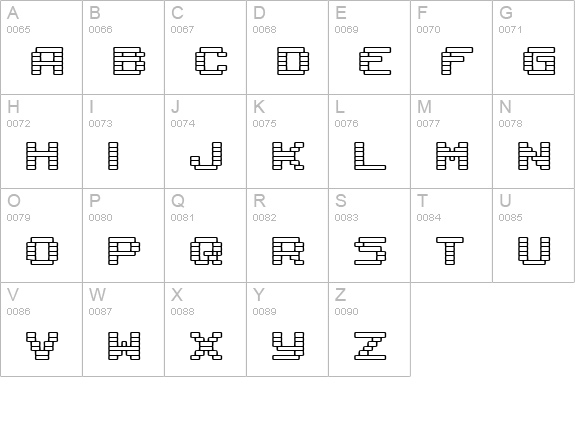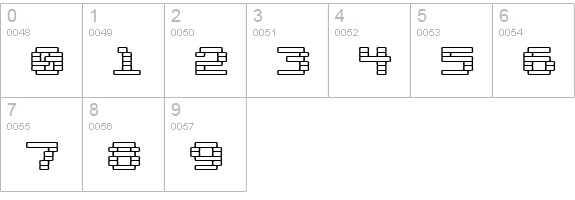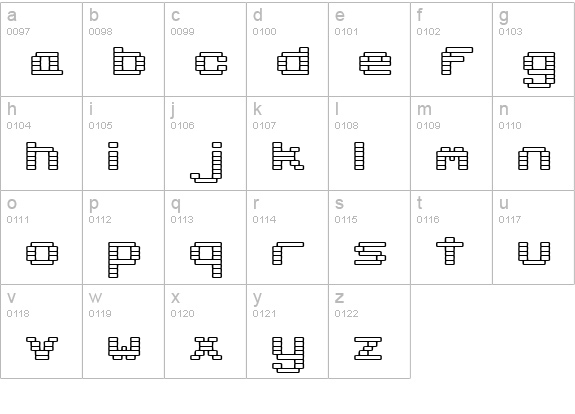
Gaposis Outline BRK Font Details
Gaposis Outline BRK is a stunning and versatile font that will elevate your design projects to new heights. With its clean lines and modern aesthetic, this font is perfect for creating eye-catching headlines, logos, posters, and more. The outline style adds a touch of sophistication and elegance to any design, making it a must-have for designers and creatives alike. Featuring a wide range of characters and glyphs, Gaposis Outline BRK offers endless possibilities for customization and creativity. Whether you're designing for print or digital media, this font will make your text stand out and grab attention. Its bold and striking appearance will ensure that your message is conveyed with impact and clarity. One of the best things about Gaposis Outline BRK is that it is free to download at FontsMarket.com. This means that you can use this amazing font in your personal and commercial projects without any restrictions. It's a great opportunity to add a professional touch to your designs without breaking the bank. So why wait? Download Gaposis Outline BRK today and start creating stunning designs that will leave a lasting impression. Whether you're a seasoned designer or just starting out, this font will take your work to the next level. Don't miss out on this amazing free font – get it now at FontsMarket.com and unleash your creativity!